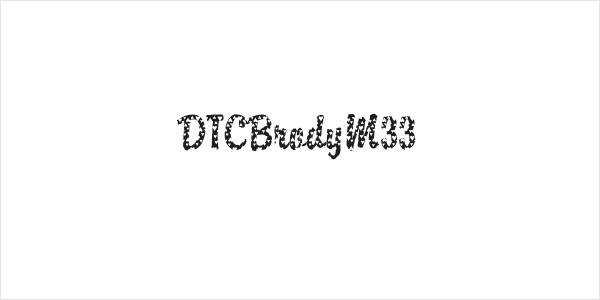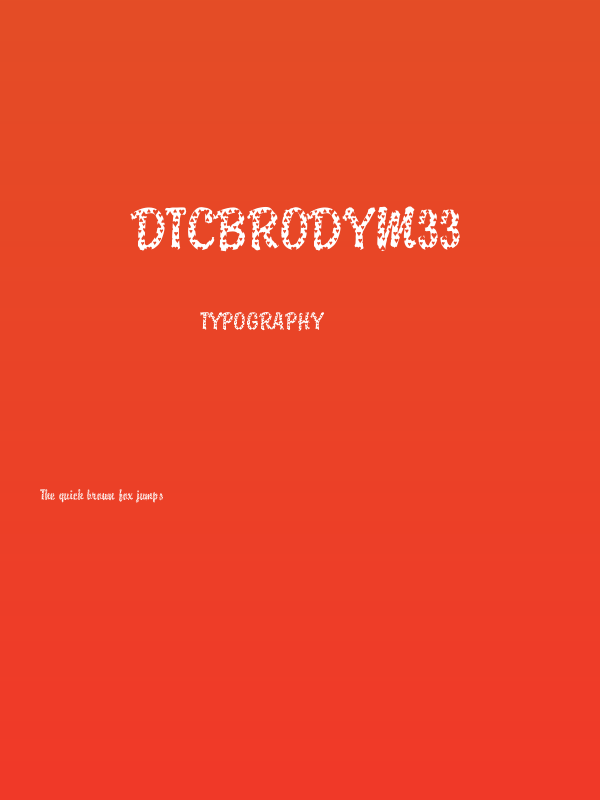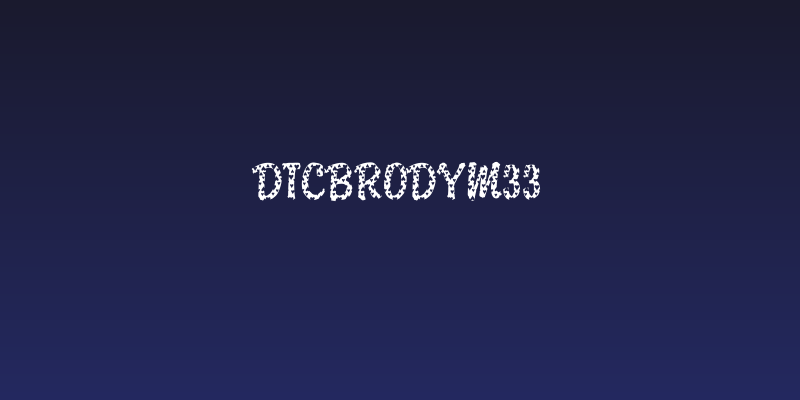
DTCBrodyM33 Font
DTCBrodyM33 Description
This font features a bold, decorative style with a unique pattern that resembles scattered leaves or abstract shapes within each character. The uppercase and lowercase letters maintain a consistent design, creating a cohesive look across the alphabet. The numbers and special characters follow the same decorative theme, ensuring uniformity throughout. The font's distinct appearance makes it stand out, ideal for projects that require a strong visual impact. Its artistic flair is perfect for creative and expressive designs.
Proposed ProjectsIdeal for posters, album covers, branding, and any project needing a bold, artistic touch.